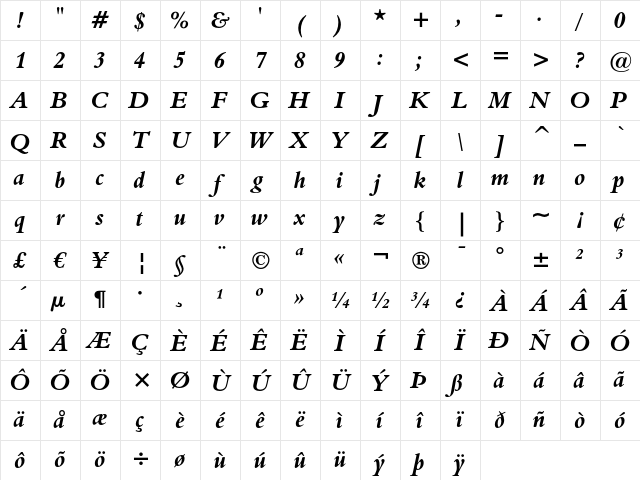
Aldine 401 Bold Italic
Complete Aldine 401 Bold Italic glyph index. Displaying only characters natively supported by Aldine 401 Bold Italic font.
Design Context for Aldine 401
Aldine 401 is a composed and adaptable typeface that performs quietly and consistently across a wide range of design contexts. The slanted form adds forward momentum and visual energy. Its bold stroke weight gives it real presence on the page.
Pro Tip: Use Aldine 401 for emphasis, pull quotes, and subheadings where its slanted energy can add rhythm to the layout.